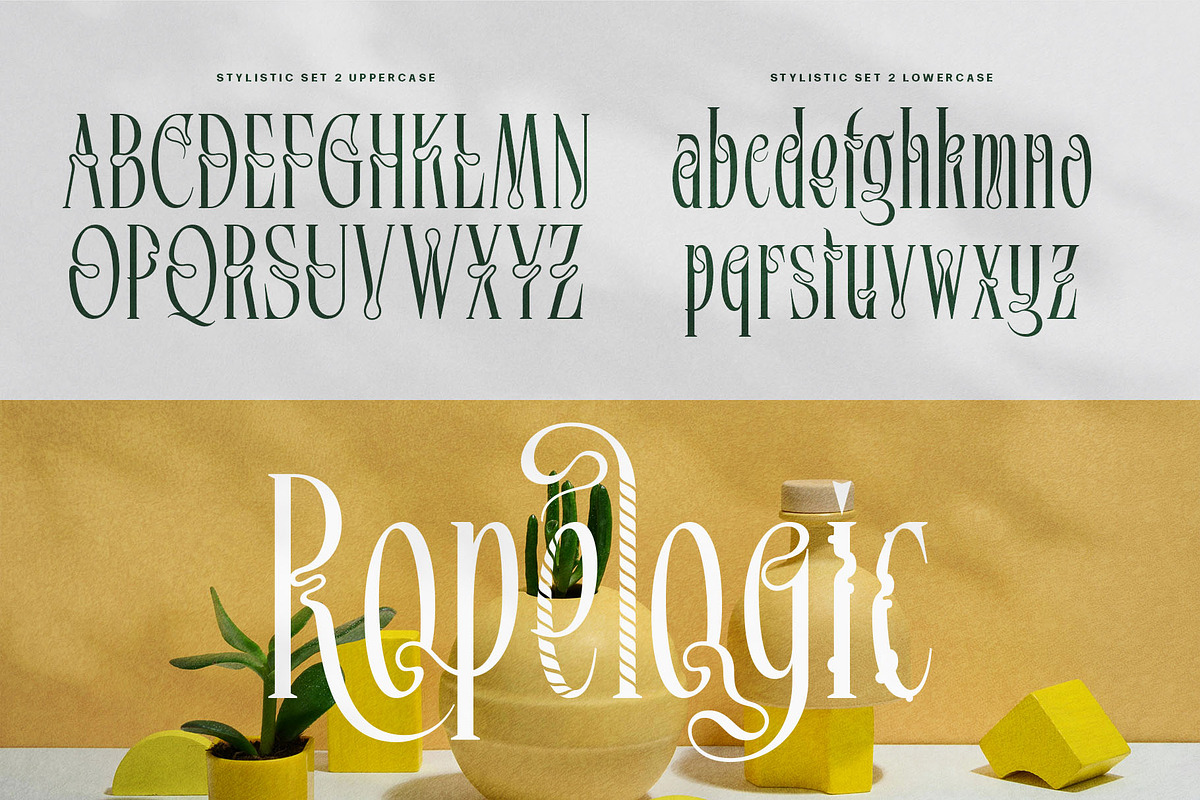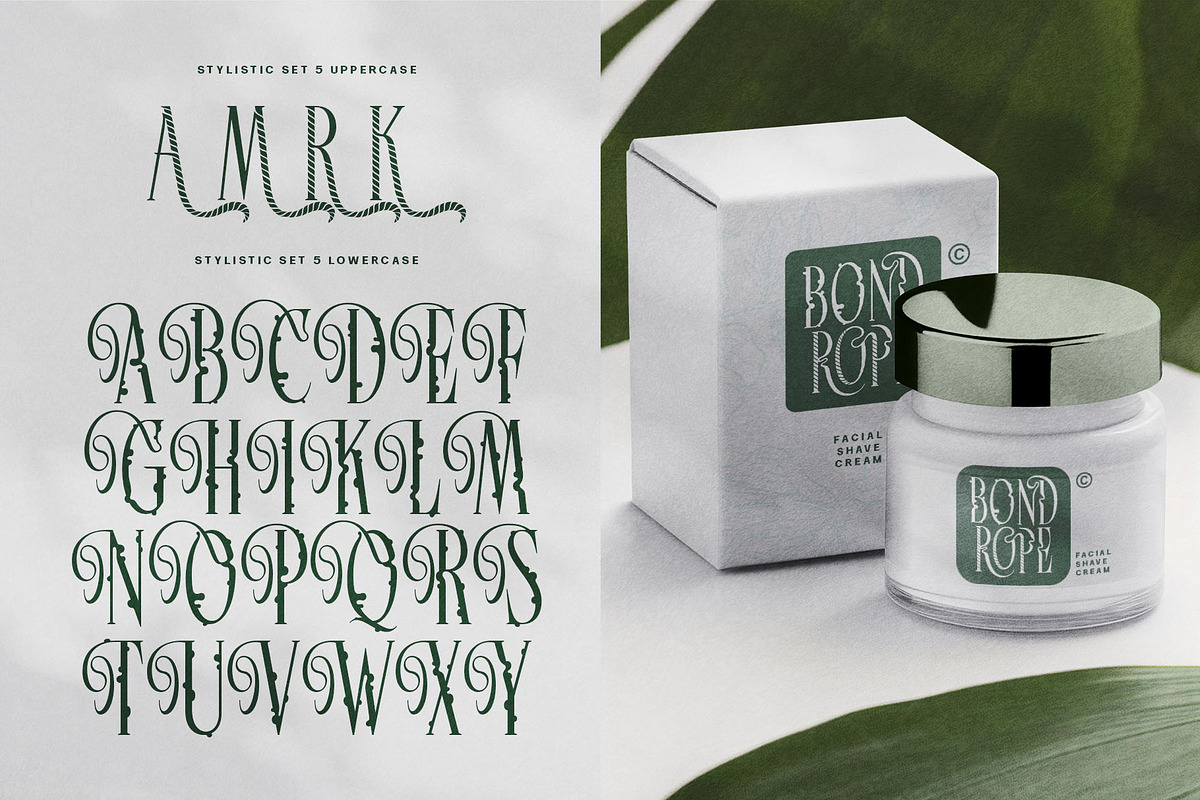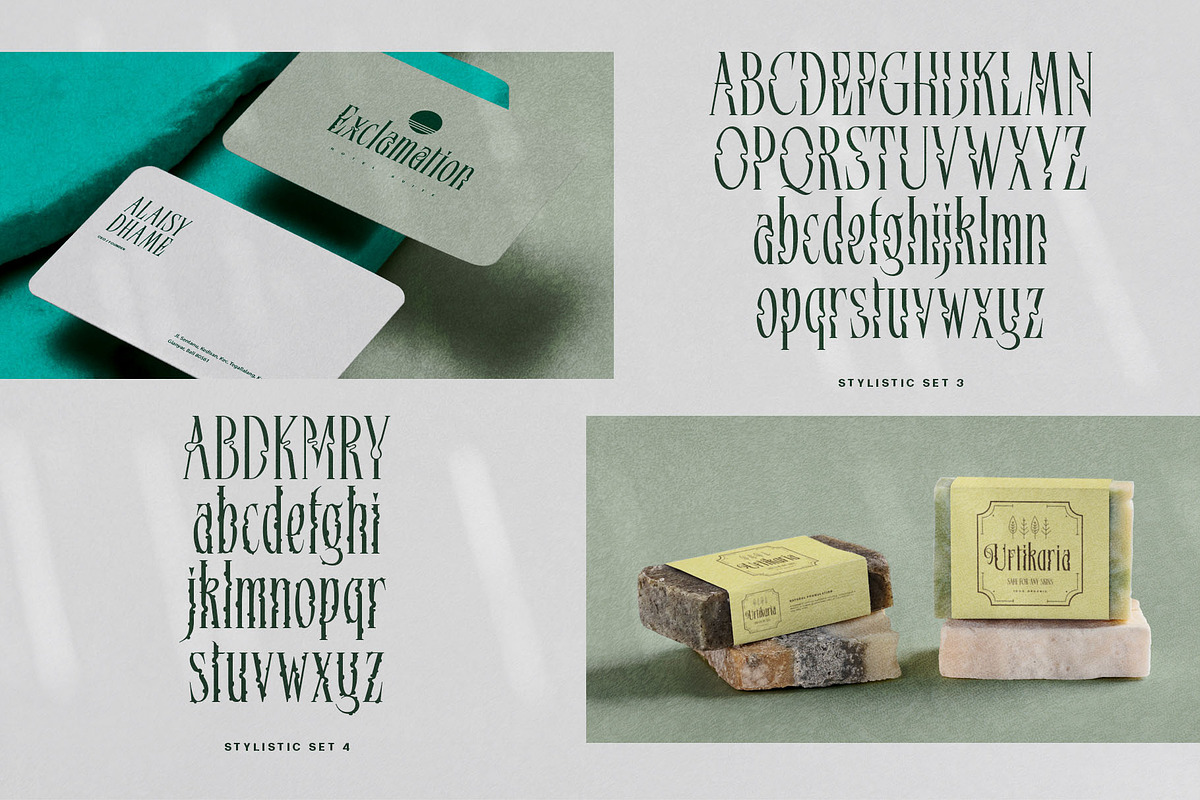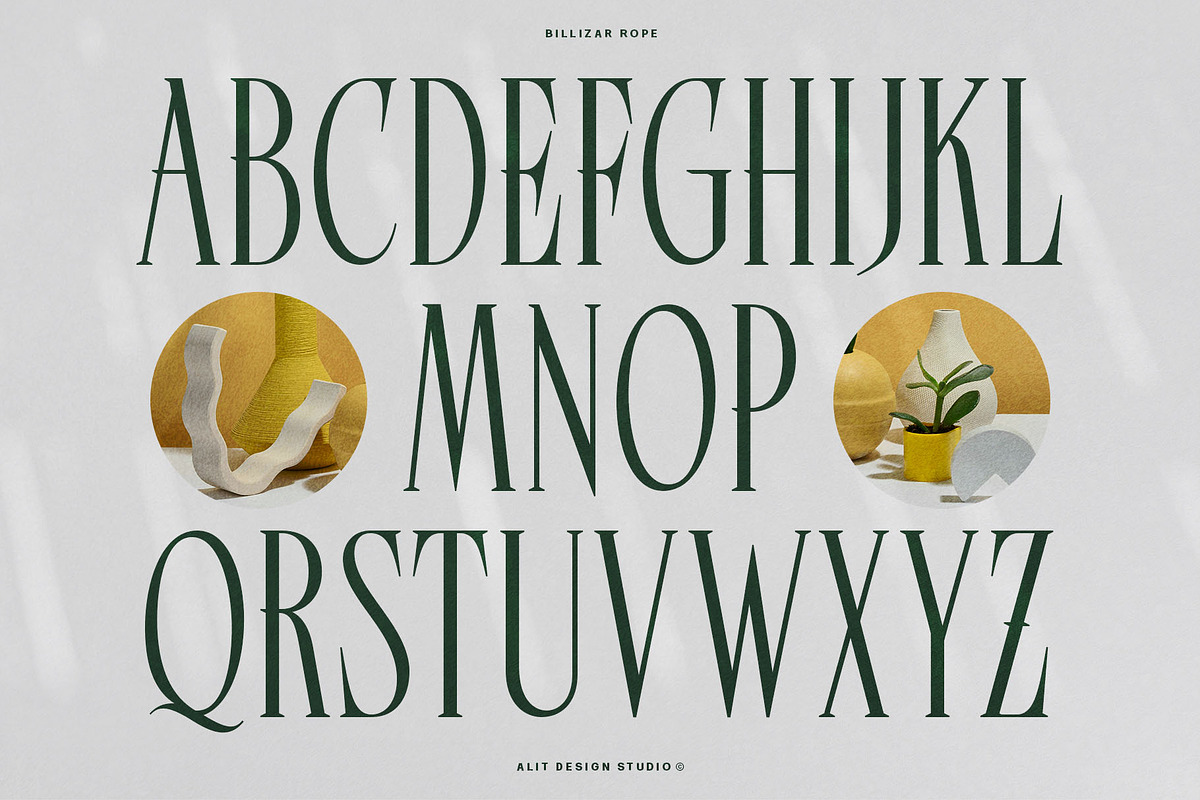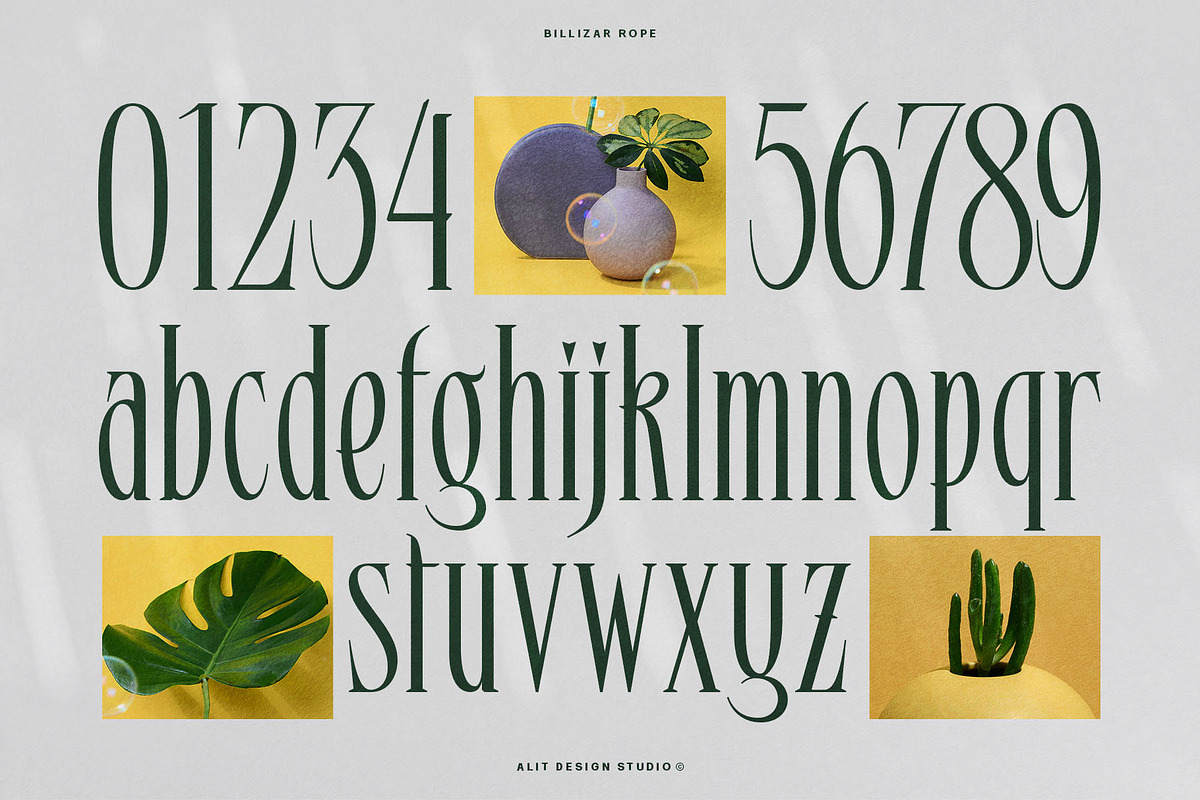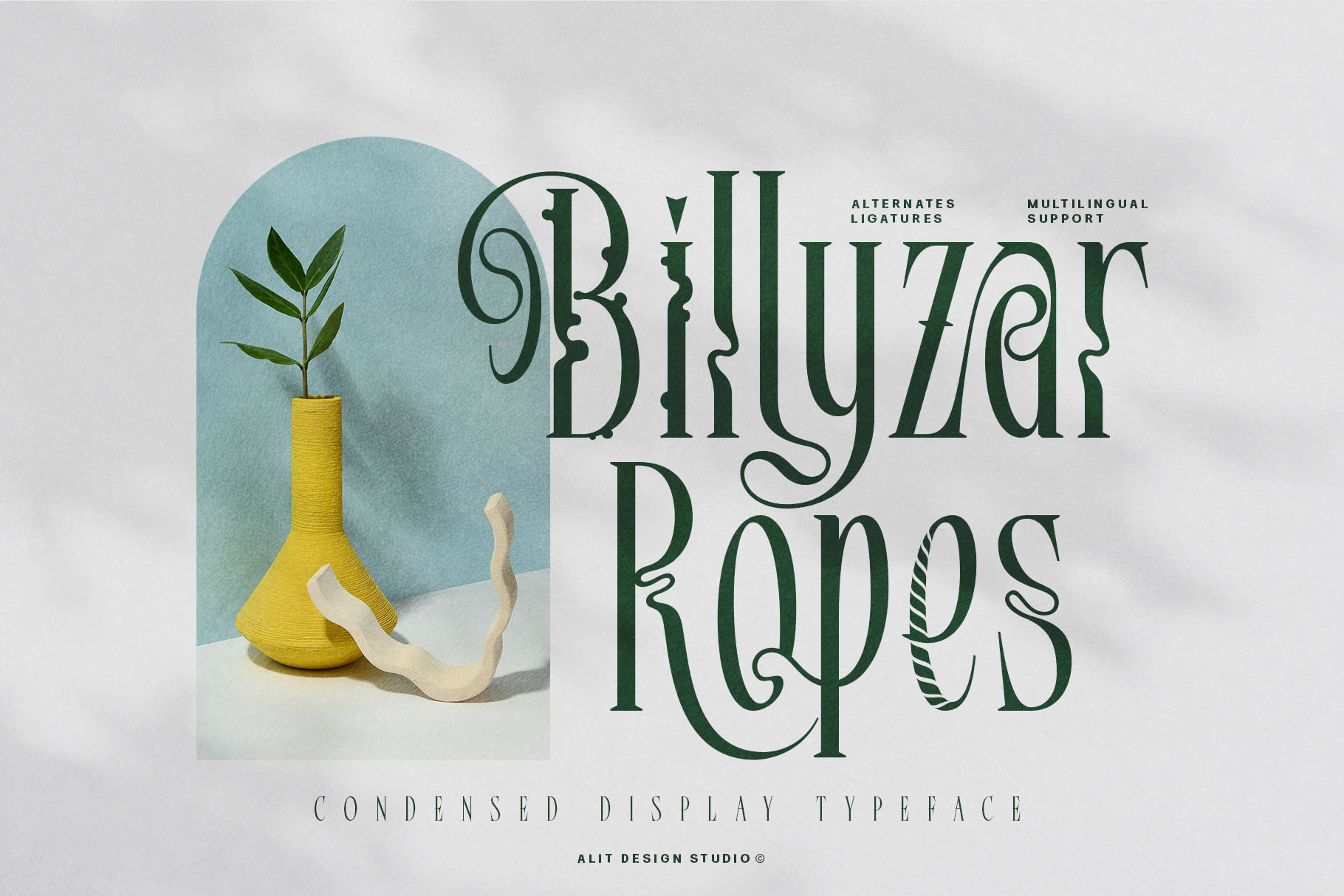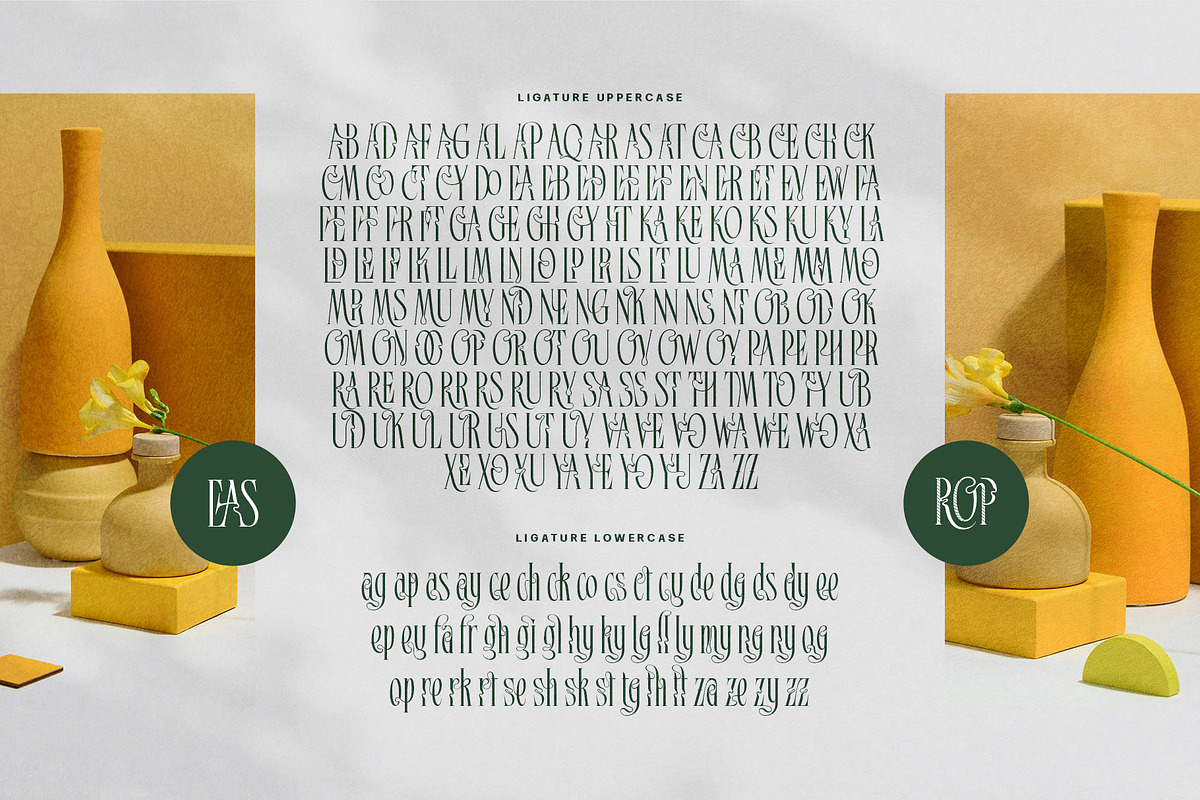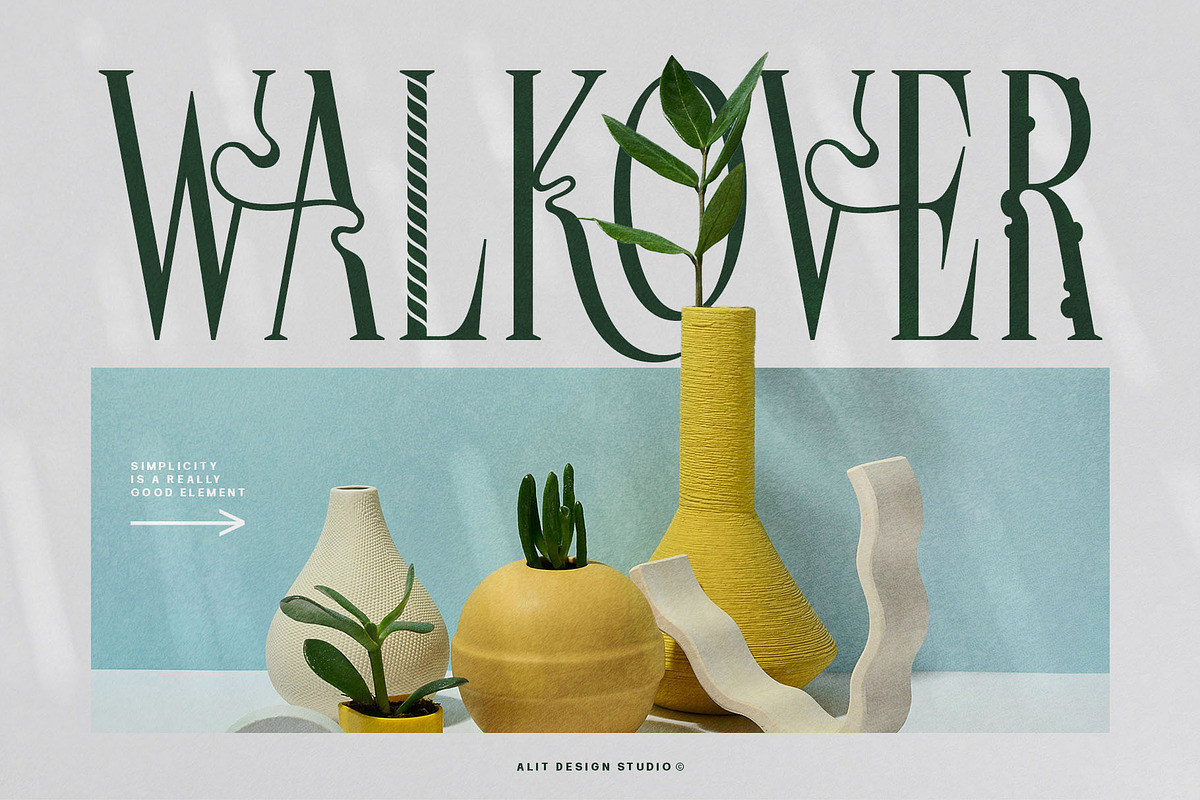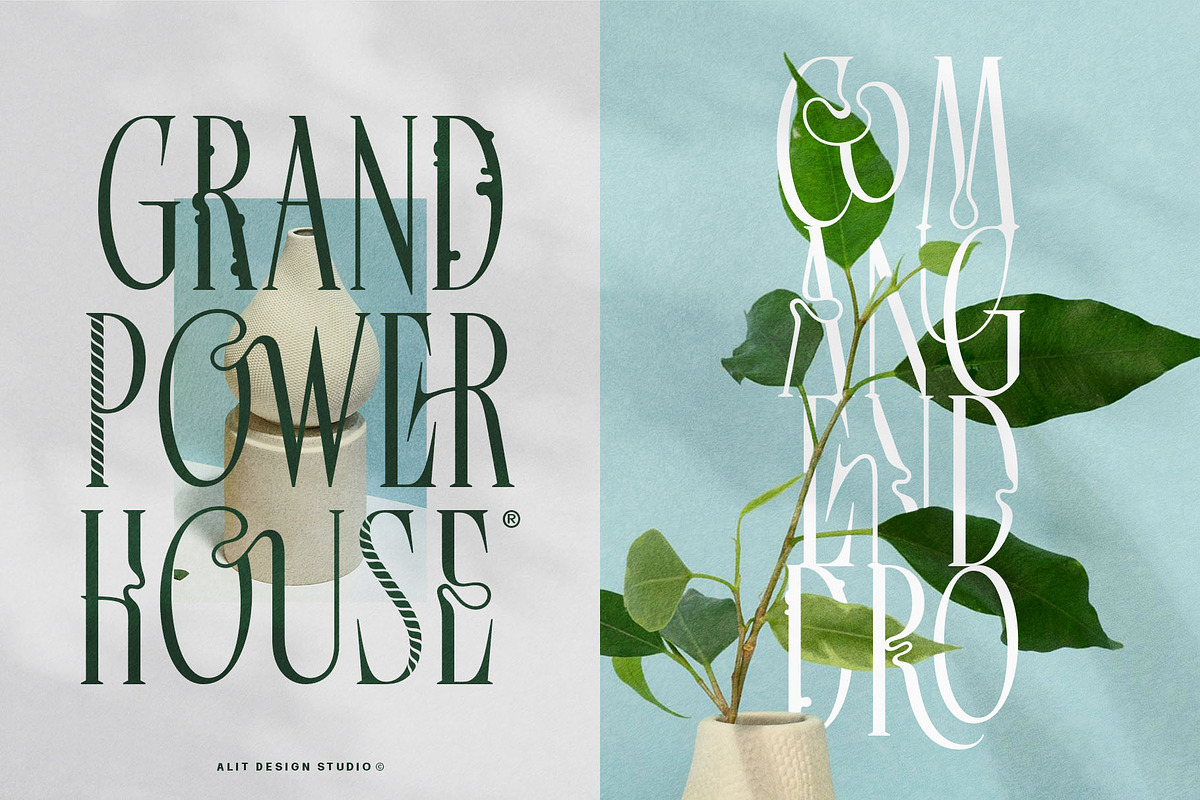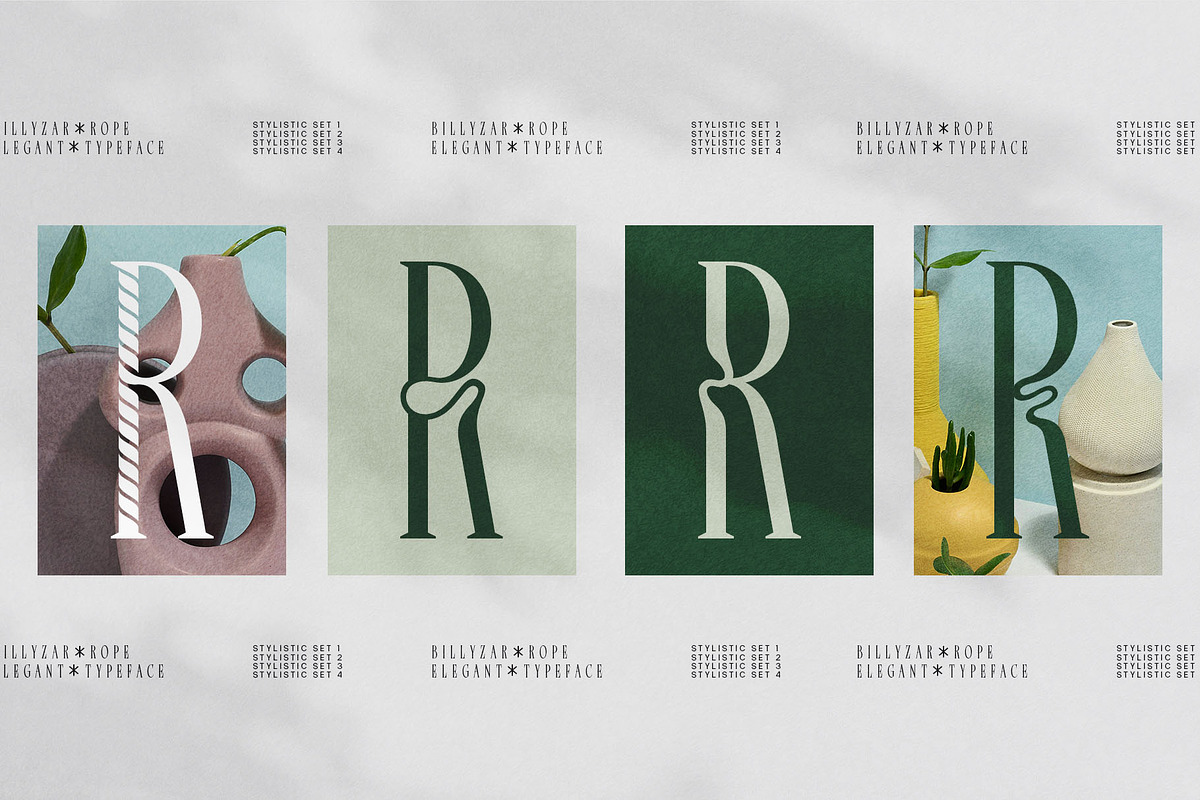
Billyzar Ropes Typeface
Introducing Billyzar Ropes Typeface
Dive into the unique world of Billyzar Ropes Typeface, where traditional serif elegance meets modern creativity. This one-of-a-kind font is designed to bring a touch of sophistication and artistic flair to your projects.
- Rope Design: Emulating the intricate twists and turns of a rope, this font adds a dynamic, handcrafted feel to your text.
- Wave Distortion: Experience a subtle wave distortion effect that brings movement and energy, perfect for standing out in any design.
- Modern Elegance: With its clean lines and contemporary aesthetic, Billyzar Ropes Typeface is ideal for modern branding, advertising, and editorial design.
- Cool and Elegant: Balancing cool sophistication with elegant details, this typeface is versatile enough for high-end fashion magazines, luxury branding, or cutting-edge websites.
Whether you’re crafting a bold headline, designing a logo, or adding a creative touch to your editorial content, Billyzar Ropes Typeface offers the flexibility and uniqueness you need. Elevate your typography game with this captivating and stylish serif font.